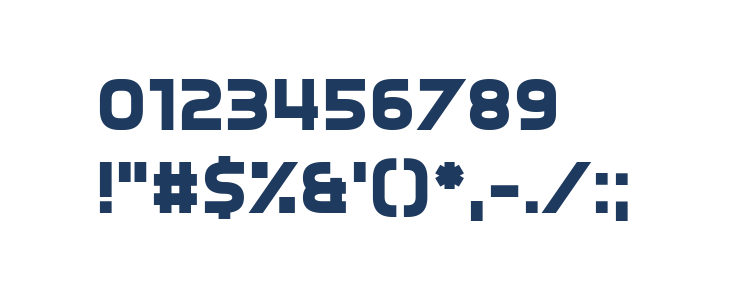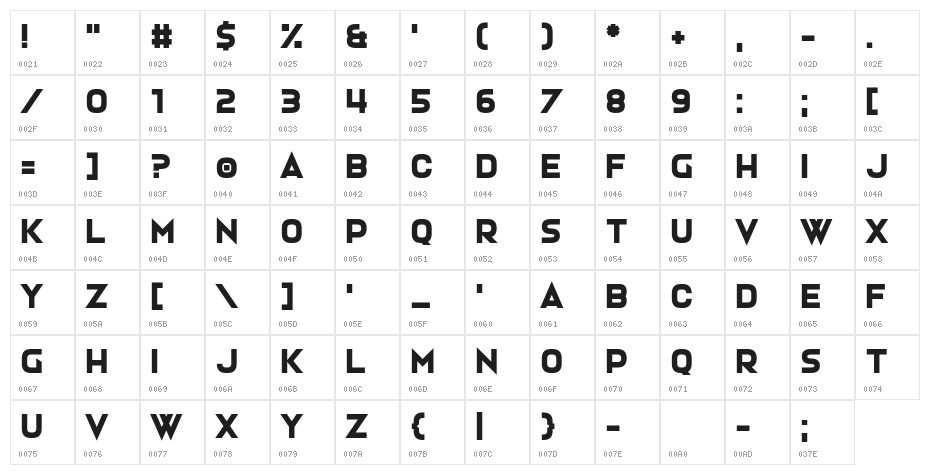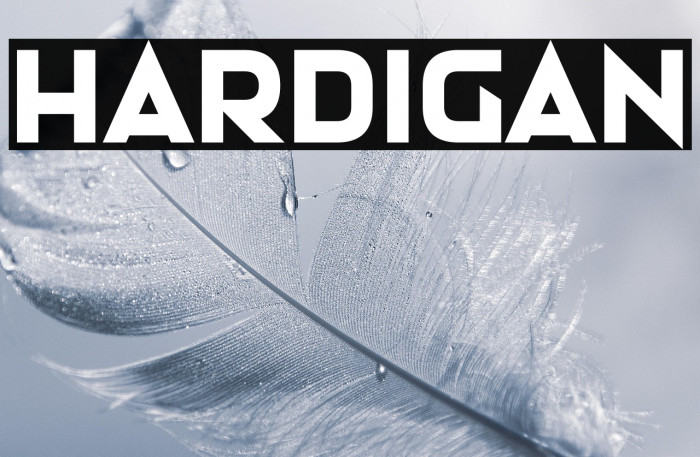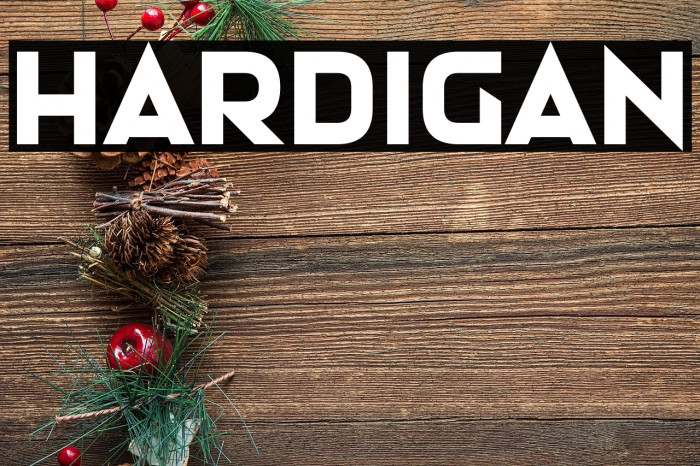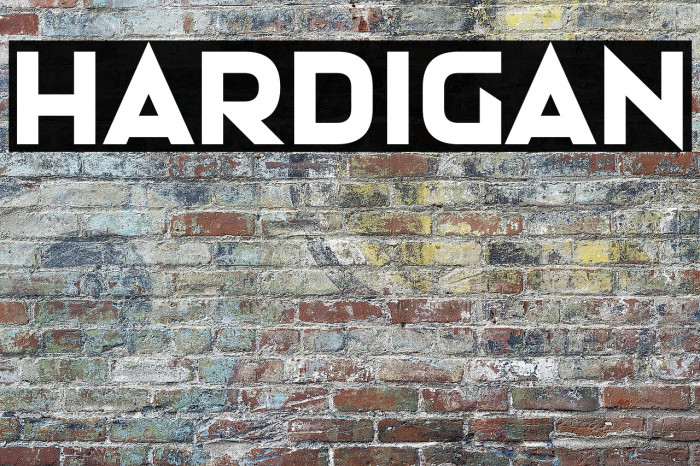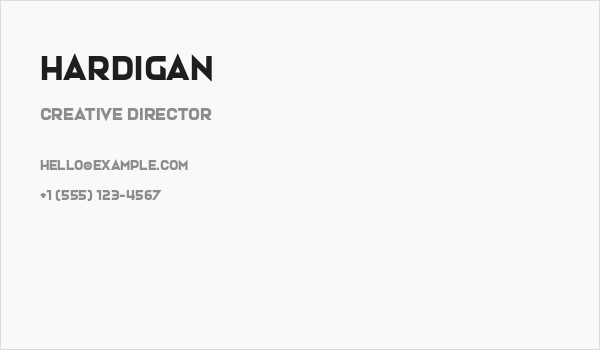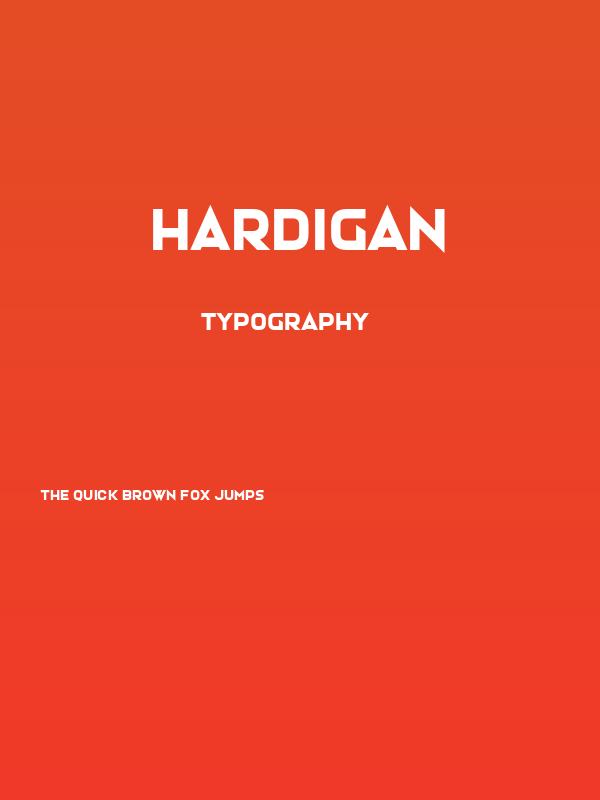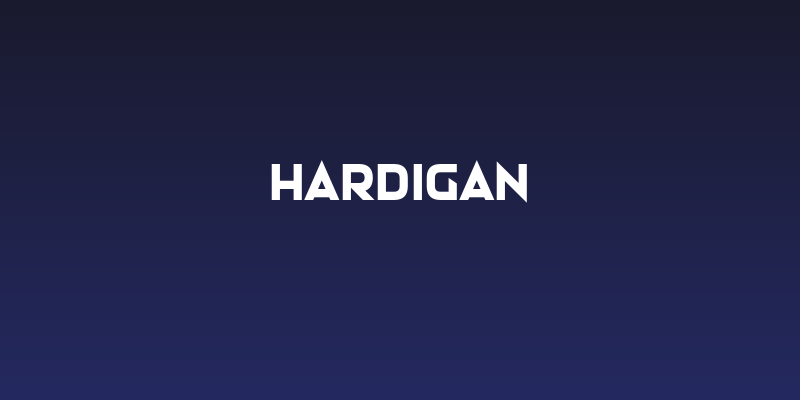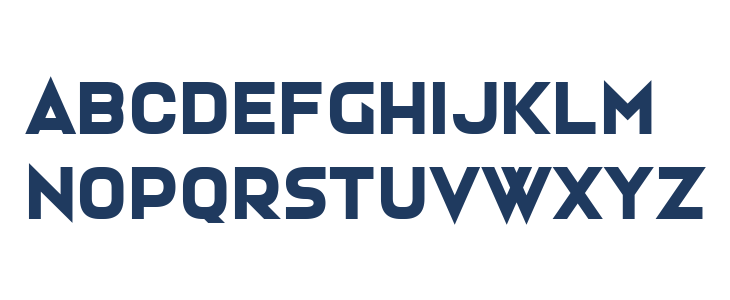
Hardigan Font
Hardigan Description
This font features a bold, geometric style with strong, angular lines and a modern aesthetic. The uppercase and lowercase letters maintain a consistent width, creating a uniform appearance. The numerals are distinct and easily readable, complementing the overall design. Special characters are designed with the same boldness, ensuring they stand out. The font's clean lines and sharp edges give it a contemporary feel, making it suitable for various design applications. Its robust structure and clear legibility make it ideal for impactful headlines and branding projects.
Proposed ProjectsIdeal for branding, headlines, posters, and digital media where a strong visual impact is needed.